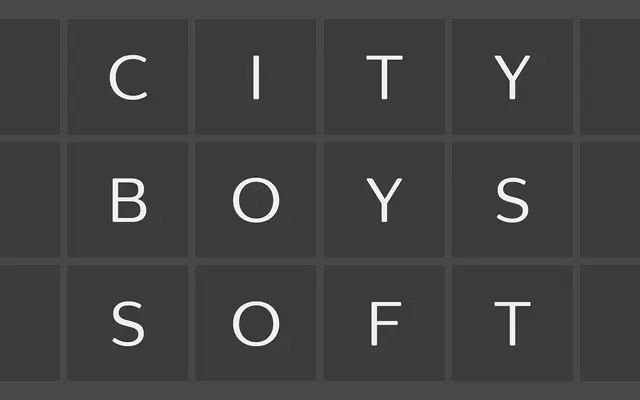
City Boys Soft
A contrasted sans with softened corners and vertical stress, offered in seven weights with italics for both screen and print use.
Built on a clean skeleton with humanist proportions but vertical stress, City Boys Soft sits between warmth and modernity without committing fully to either. The contrast ratio is tuned for contemporary applications, from digital interfaces to branded print, and the full family spans seven weights each paired with a matching italic. A companion family, City Boys, offers identical structure with standard sharp corners for a crisper alternative.
Described as having a humanist structure with vertical stress and moderate contrast, placing it between humanist and transitional sans categories; the soft corners and refined letterforms distinguish it from strict geometric or grotesque classifications.